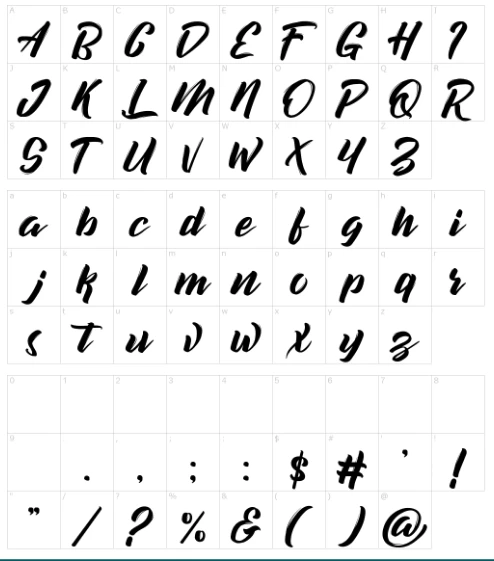
Decalled Font is a charming script and brush font. Semut Hitam created and shared the Beautiful typeface. Decalled is a script typeface that is both crisp and graceful. Many OpenType features are included, including upper and lower case standard characters, punctuation and numerals, multilingual characters, ligatures, stylistic alternates, swash, and a variety of other glyphs. The Font exudes a fantastic aesthete atmosphere.
The Decalled Script Font is ideal for logos, branding, posters, flyers, greeting cards, invitations, book covers, quotations, and many more uses. You can effortlessly put anything on your cap or t-shirt using it. It can also be used to create beautiful photography captions.
| Name | Decalled Script Font |
| Style | Script |
| Designer | Semut Hitam |